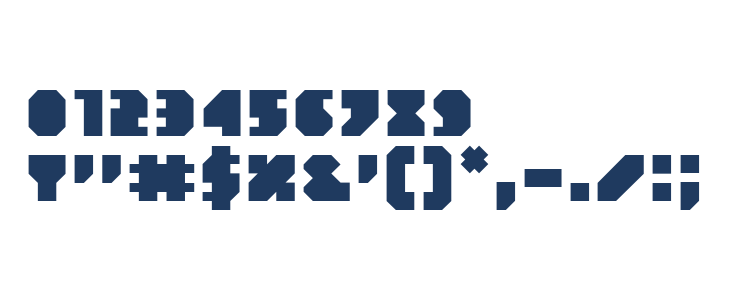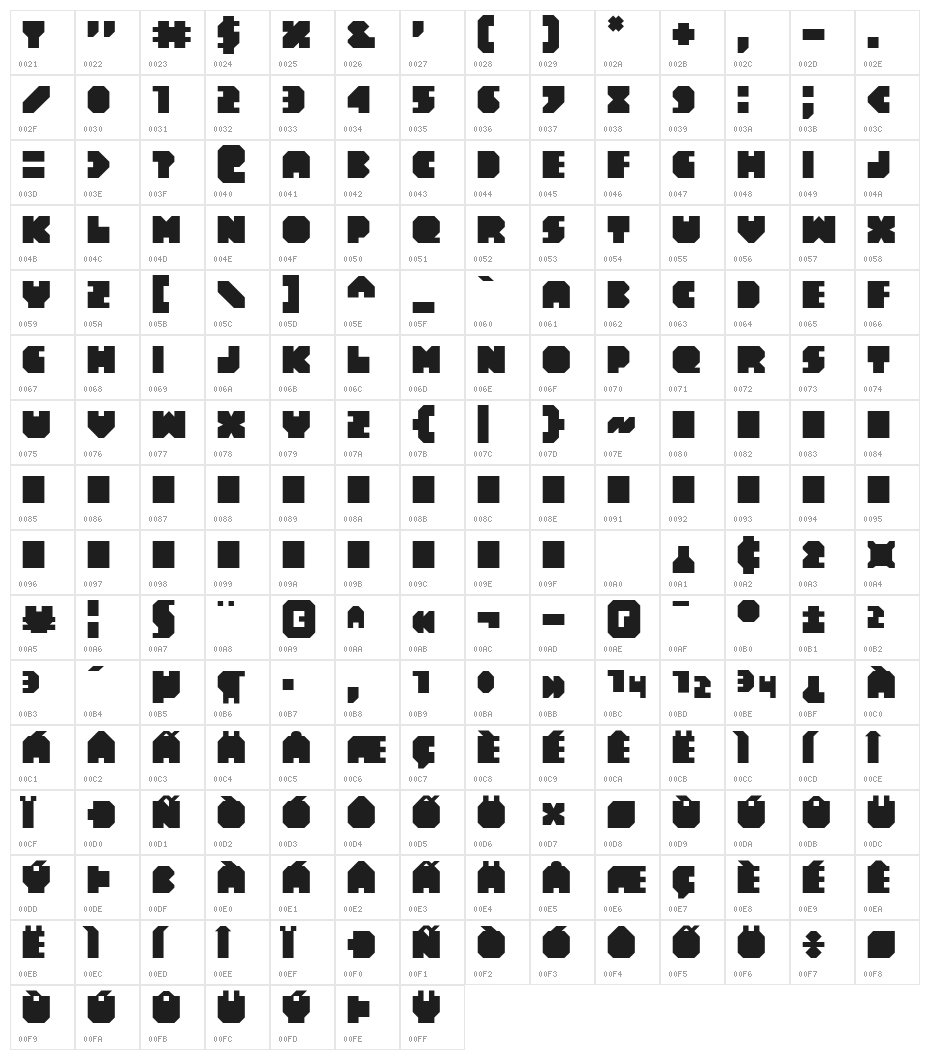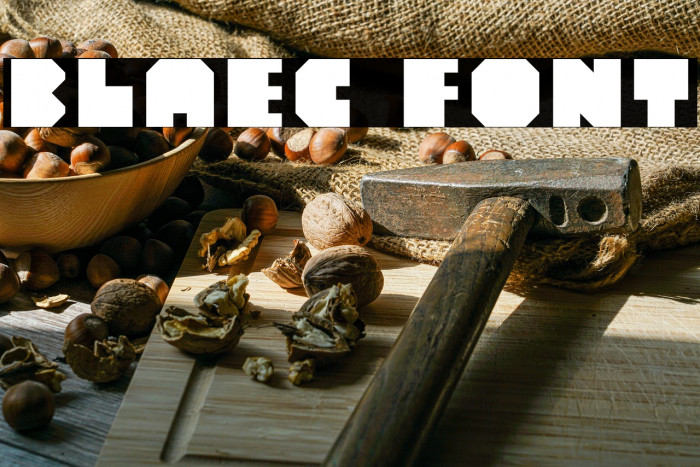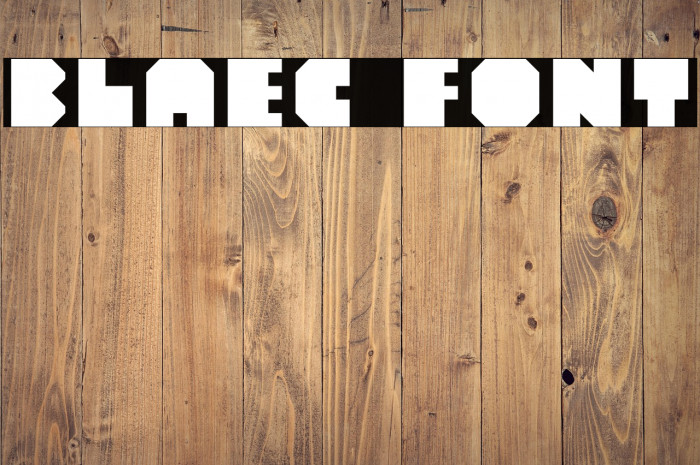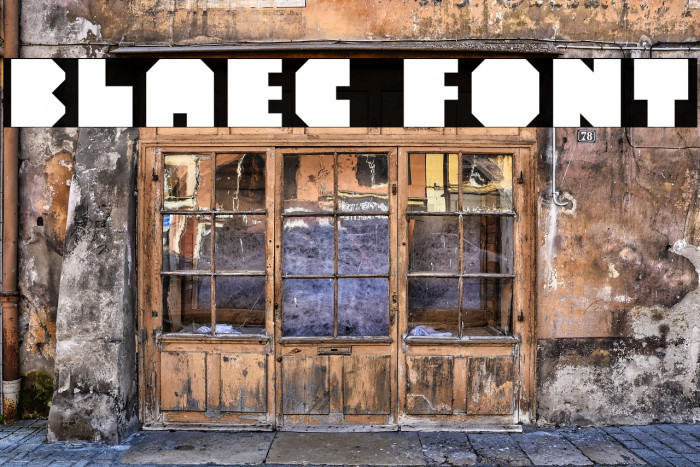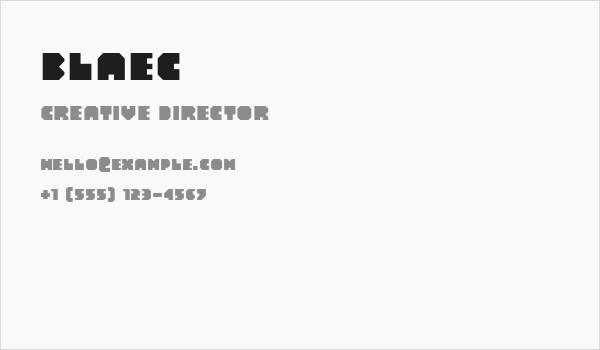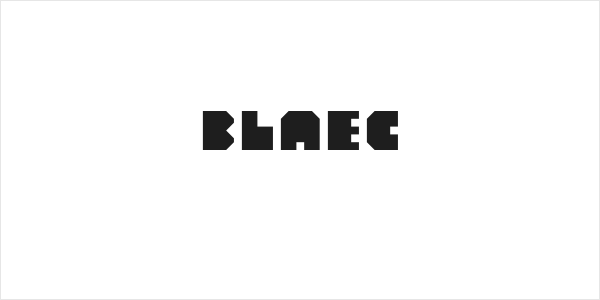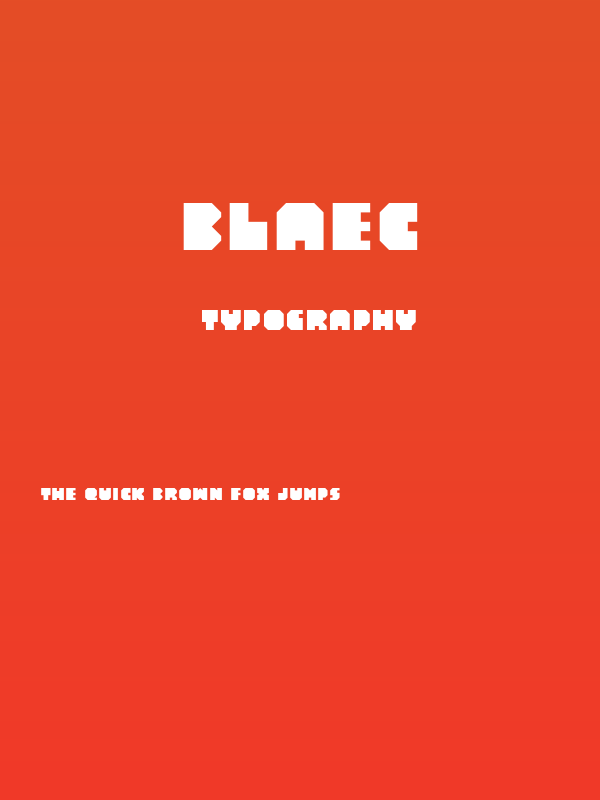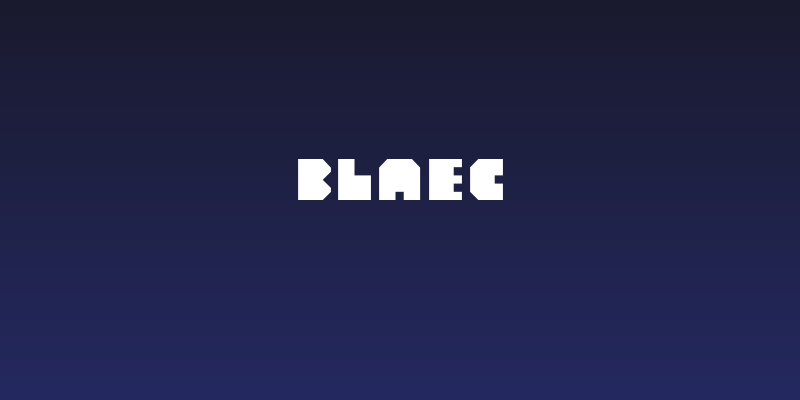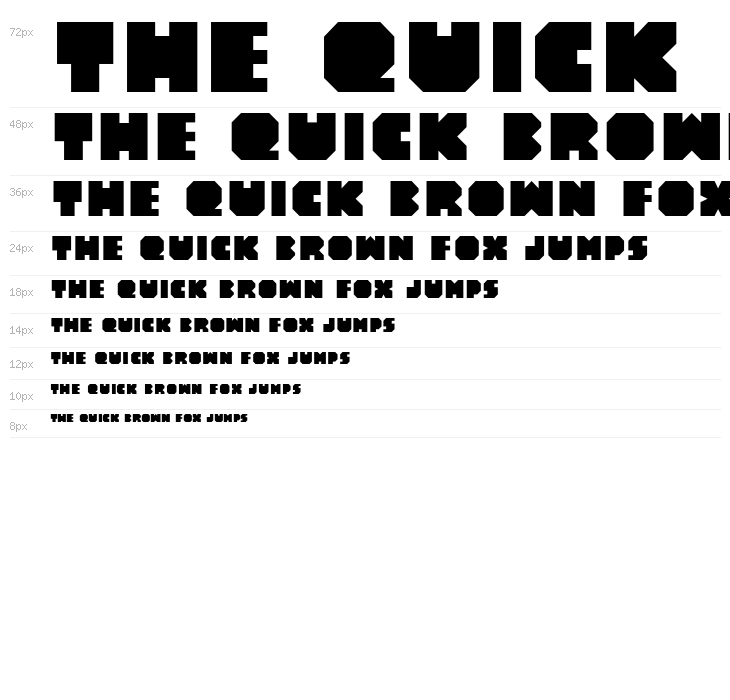
Blaec Font
Blaec Description
This font features a bold, geometric design with sharp angles and a blocky appearance. The characters are uniform in width, creating a cohesive and structured look. The uppercase and lowercase letters maintain a consistent style, with the lowercase mirroring the uppercase in form. Numbers and special characters follow the same angular, bold design, ensuring visual harmony across all elements. The font's strong presence makes it ideal for attention-grabbing headlines or impactful logos. Its unique style is both modern and slightly retro, reminiscent of digital or arcade aesthetics.